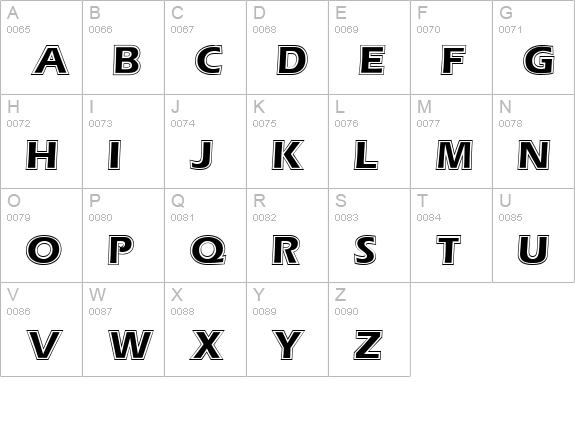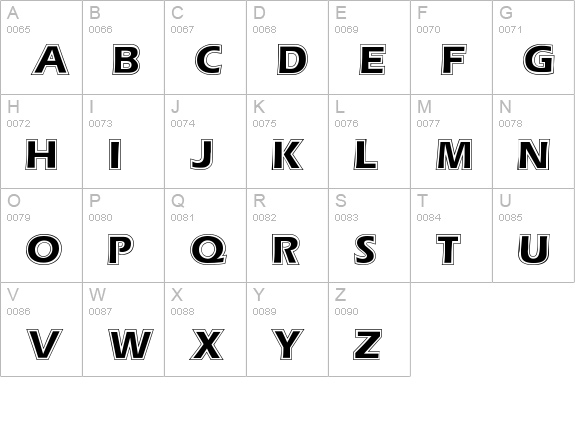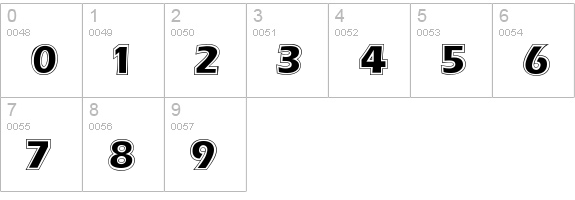
TR Erie Contour Plain Font Details
The TR Erie Contour Plain font is a stylish and versatile typeface that exudes elegance and sophistication. Its unique contours and sleek design make it perfect for a wide range of design projects, from branding to editorial design. The font features a smooth and clean appearance, making it easy to read and pleasing to the eye. What sets TR Erie Contour Plain font apart is that it is available for free download at FontsMarket.com. This means that you can access this high-quality font without any cost, making it a valuable asset for designers and creatives looking to enhance their projects without breaking the bank. Whether you're working on a logo, website, or print materials, the TR Erie Contour Plain font is sure to make a statement and elevate your design to the next level. Download this stunning font today and add a touch of sophistication to your creative projects.